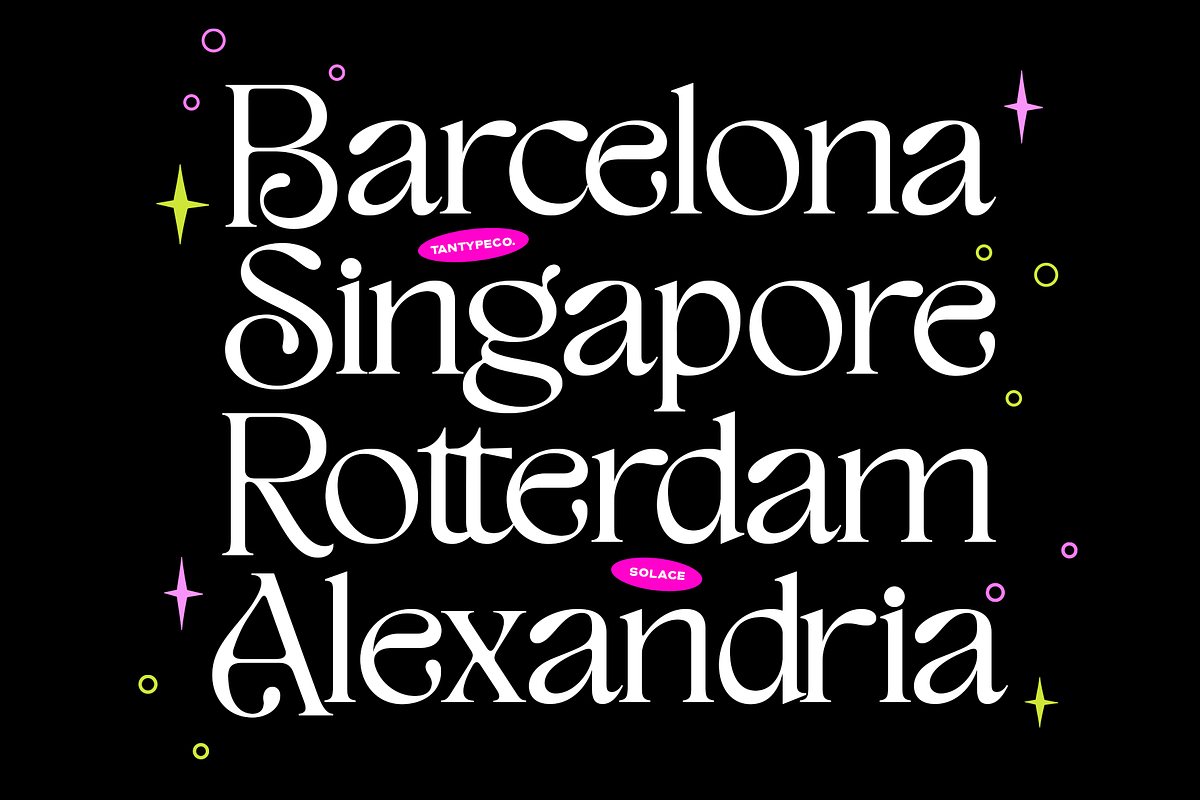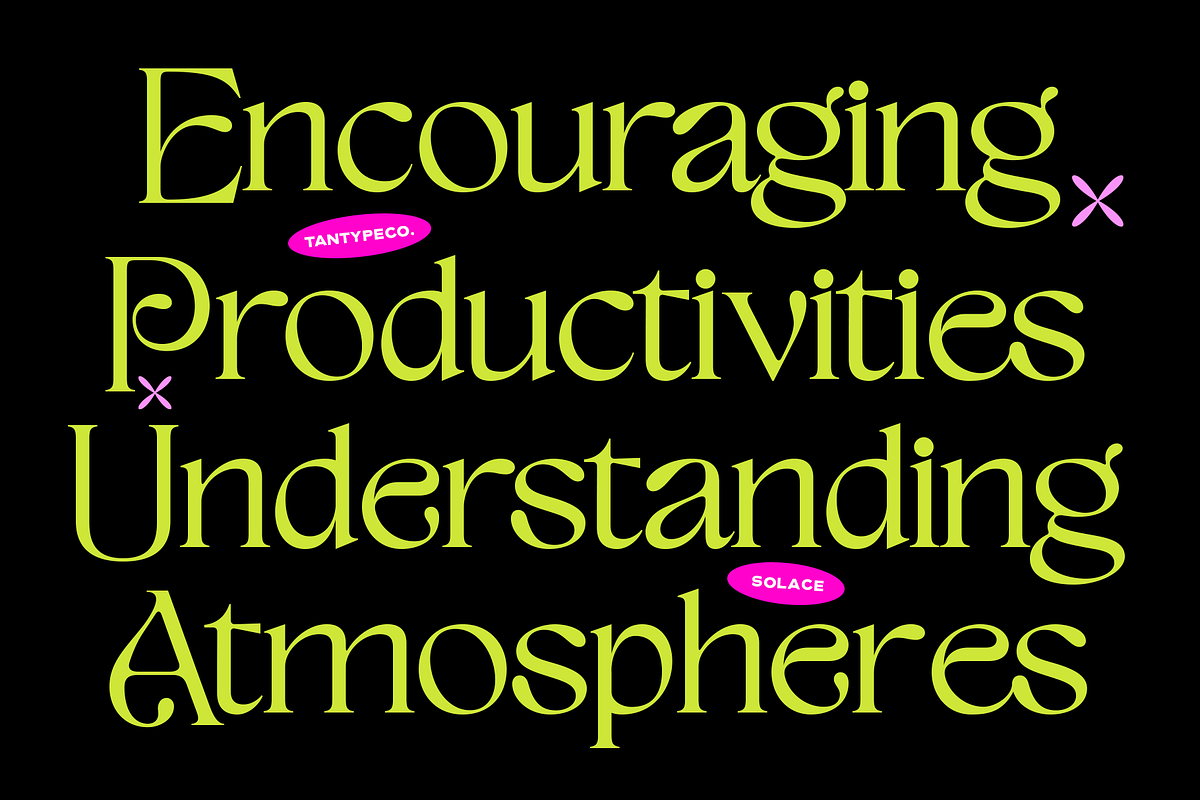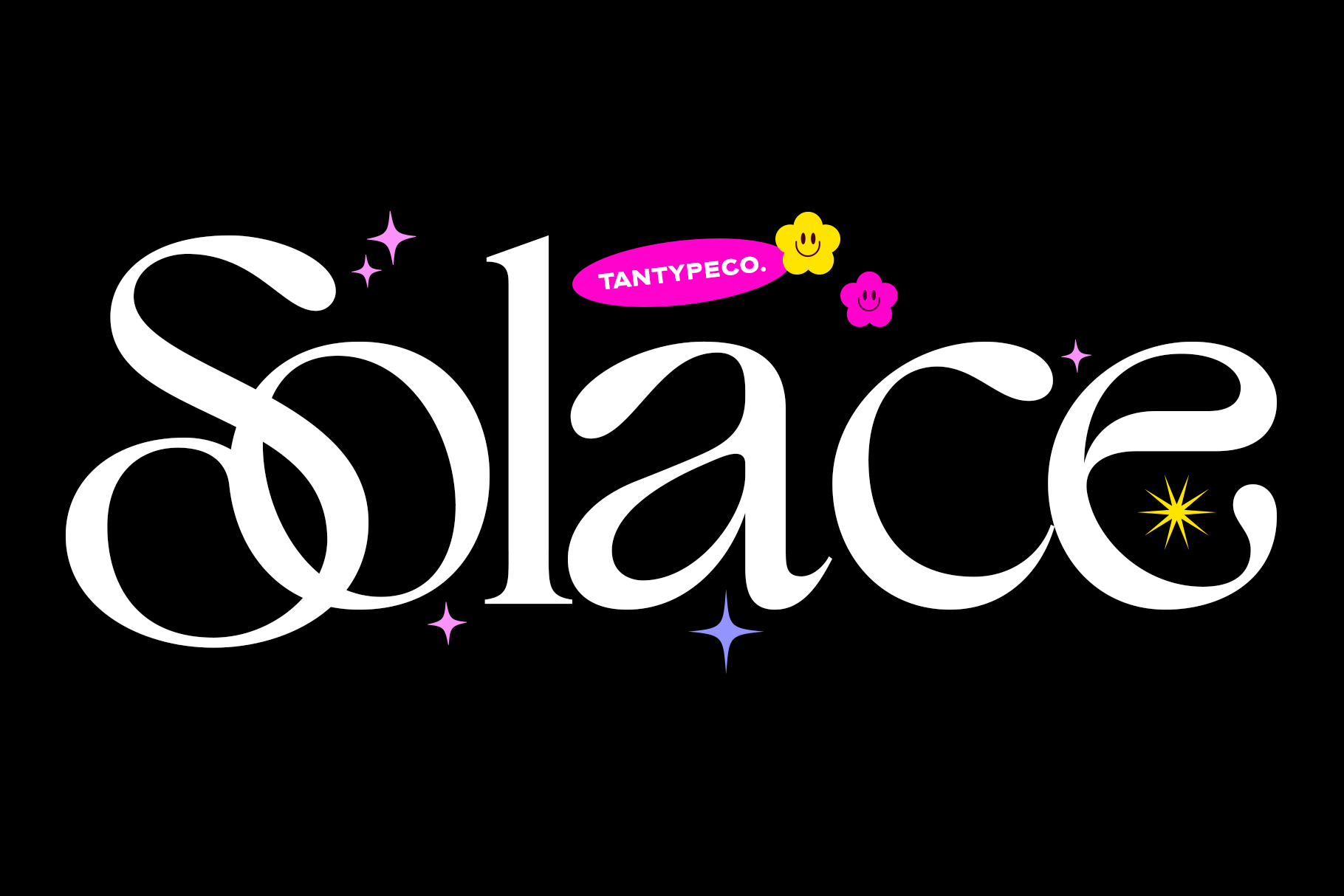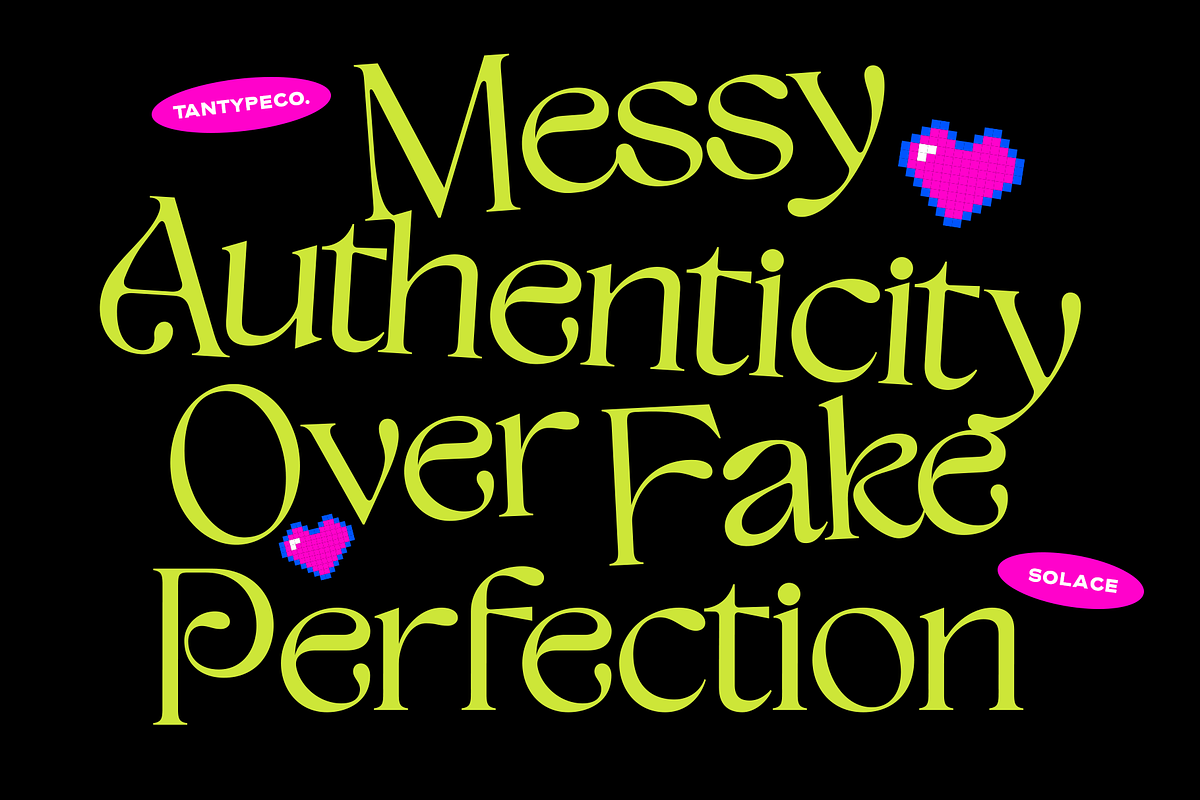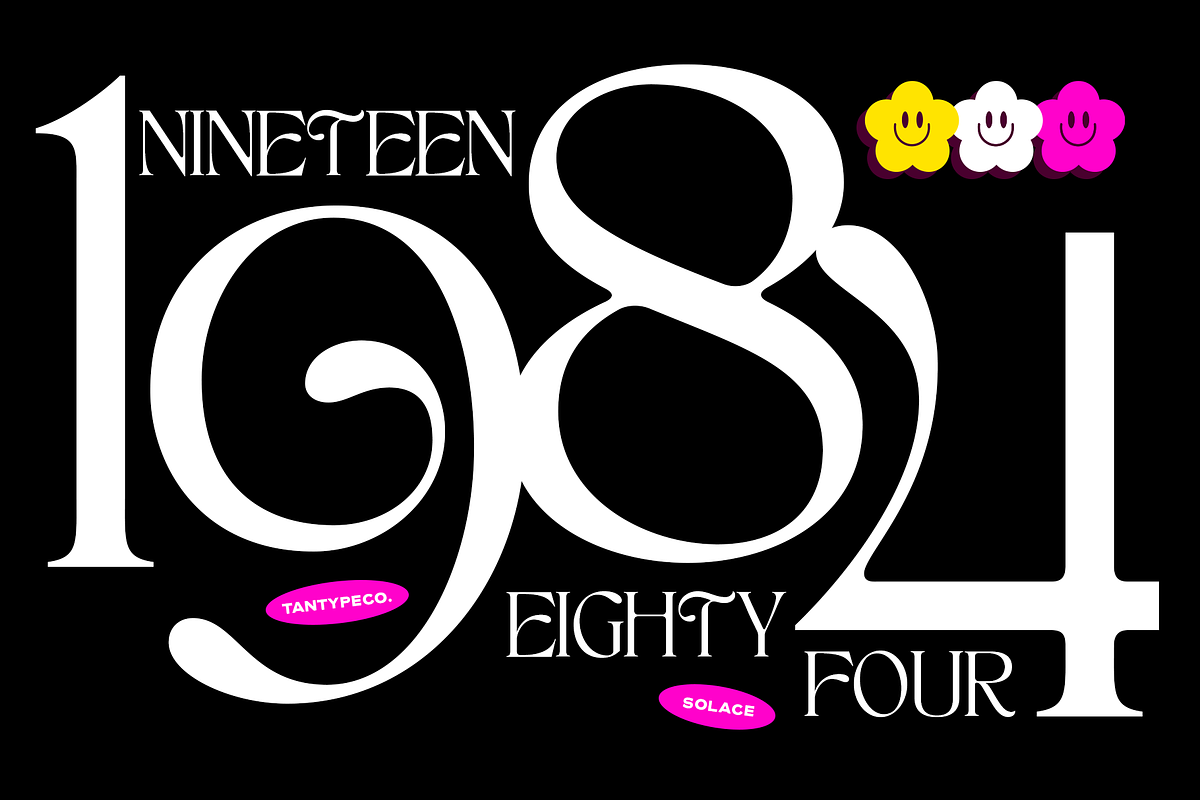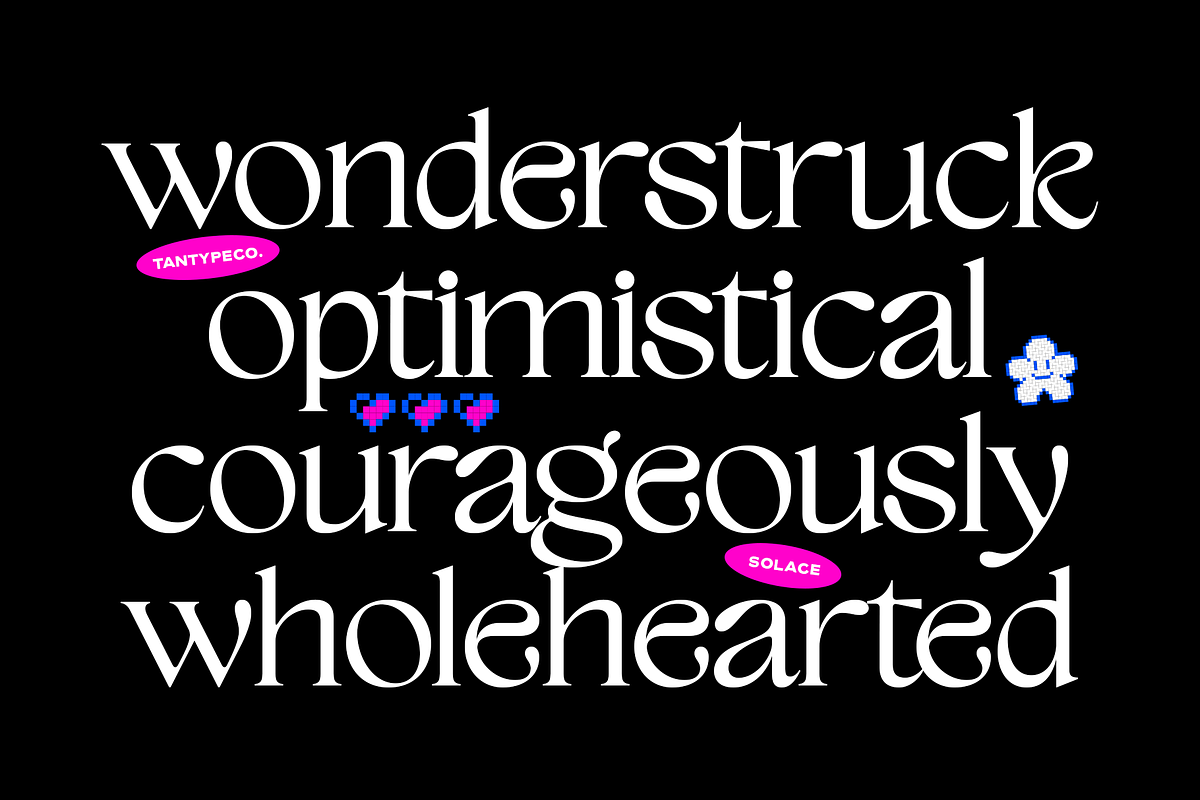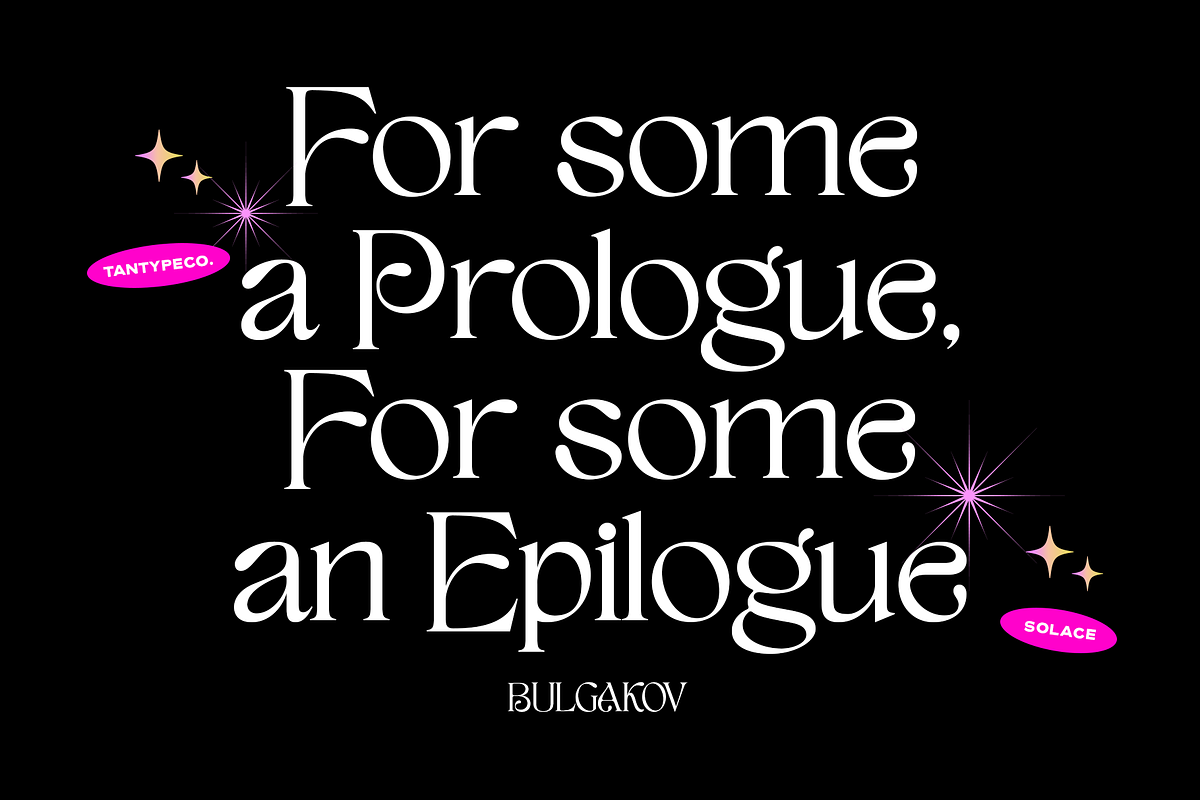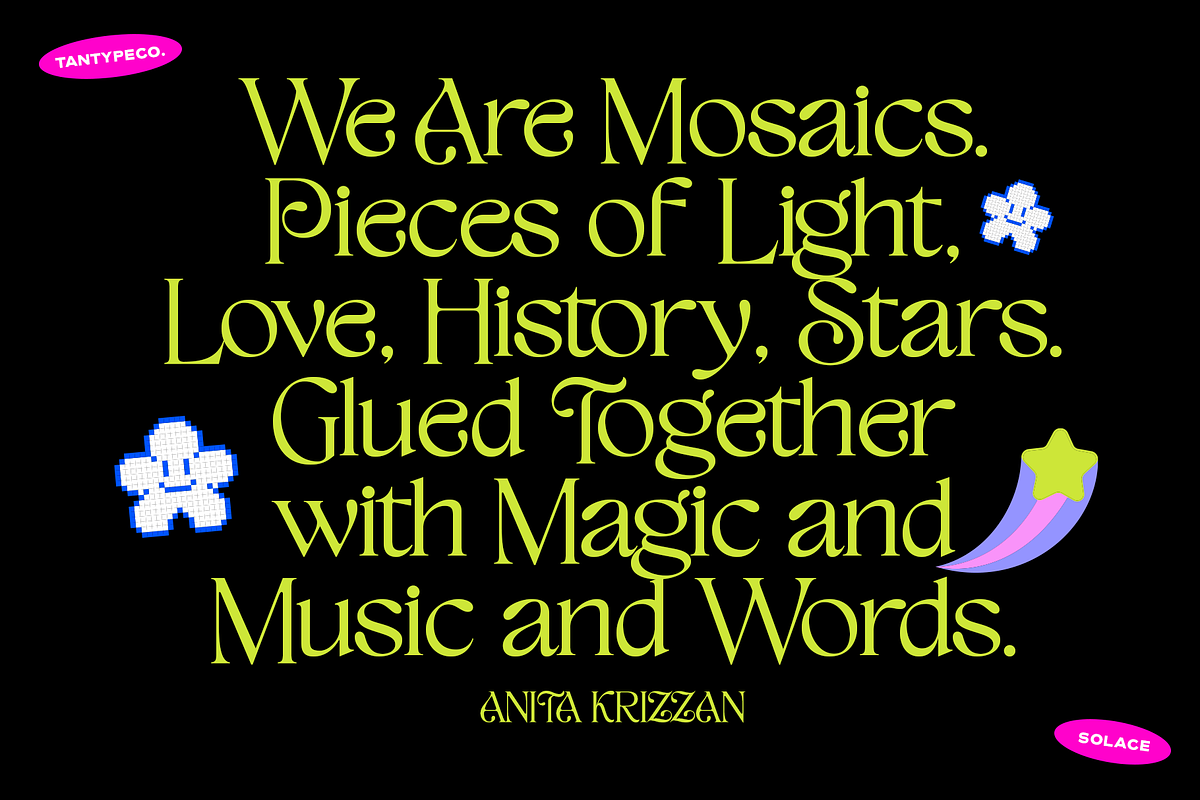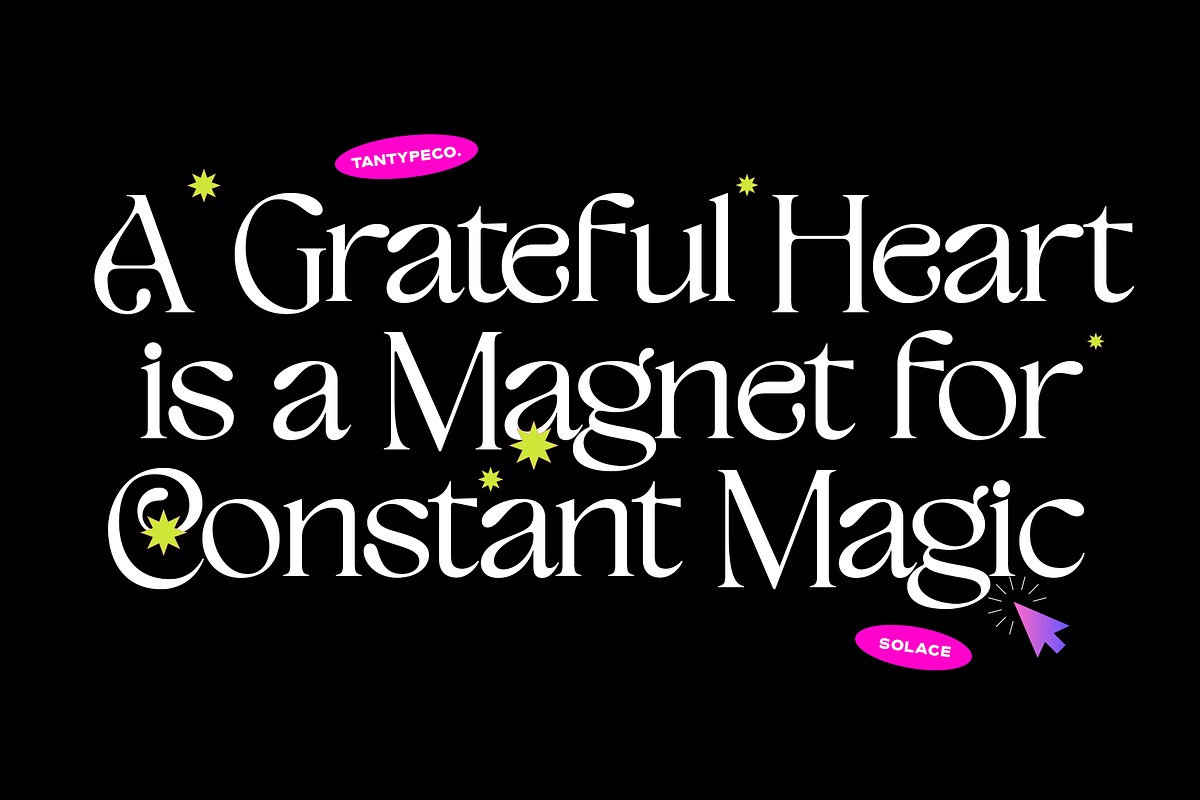
TAN - SOLACE - CLASSIC DISPLAY FONT
Tan-Solace is a classic serif display font with a twist — familiar in structure, but never boring. Built on conventional proportions with subtle character details, it stays legible where you need function and turns heads where you want drama. Perfect for branding, editorial, packaging, and luxury design projects that demand both sophistication and personality.